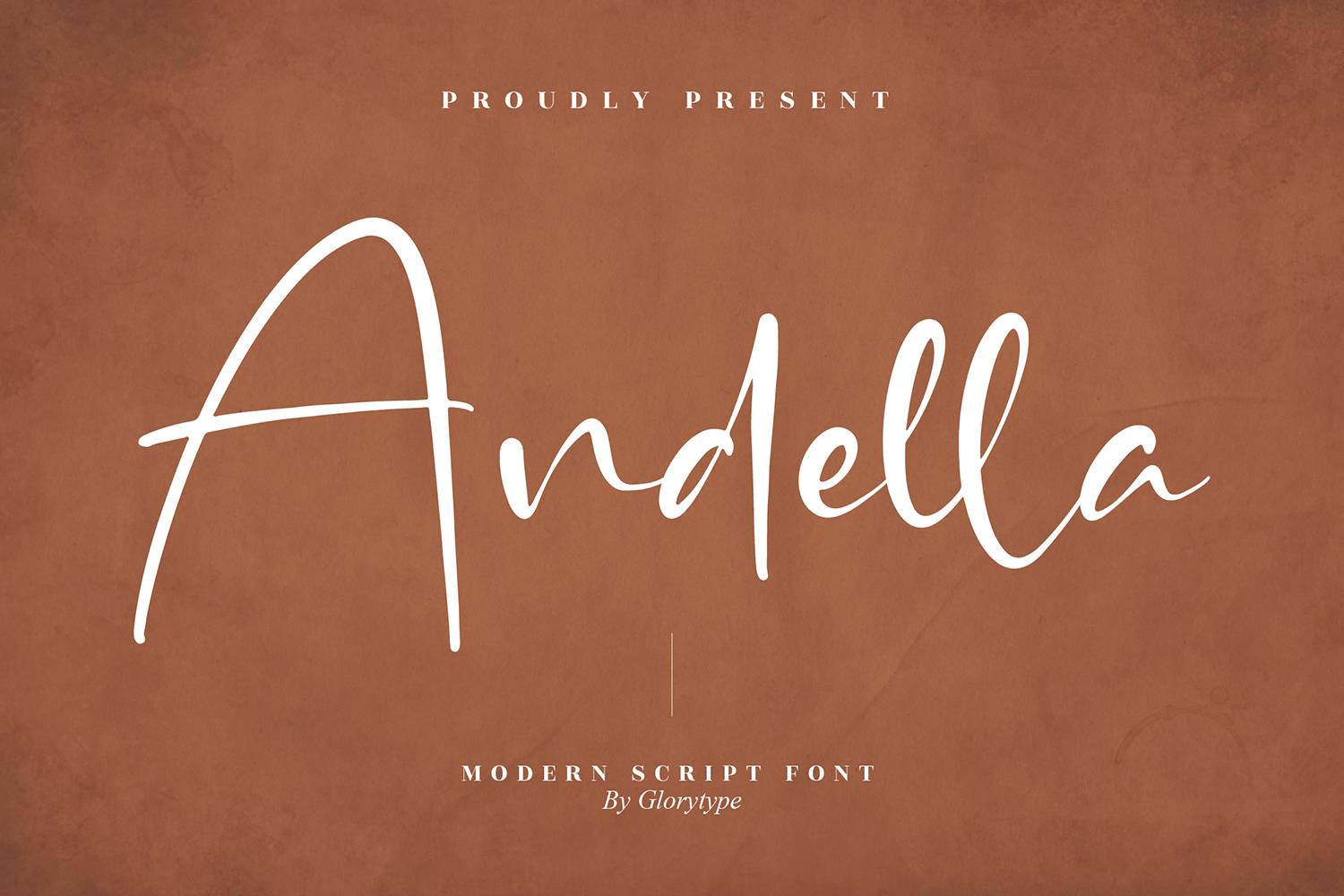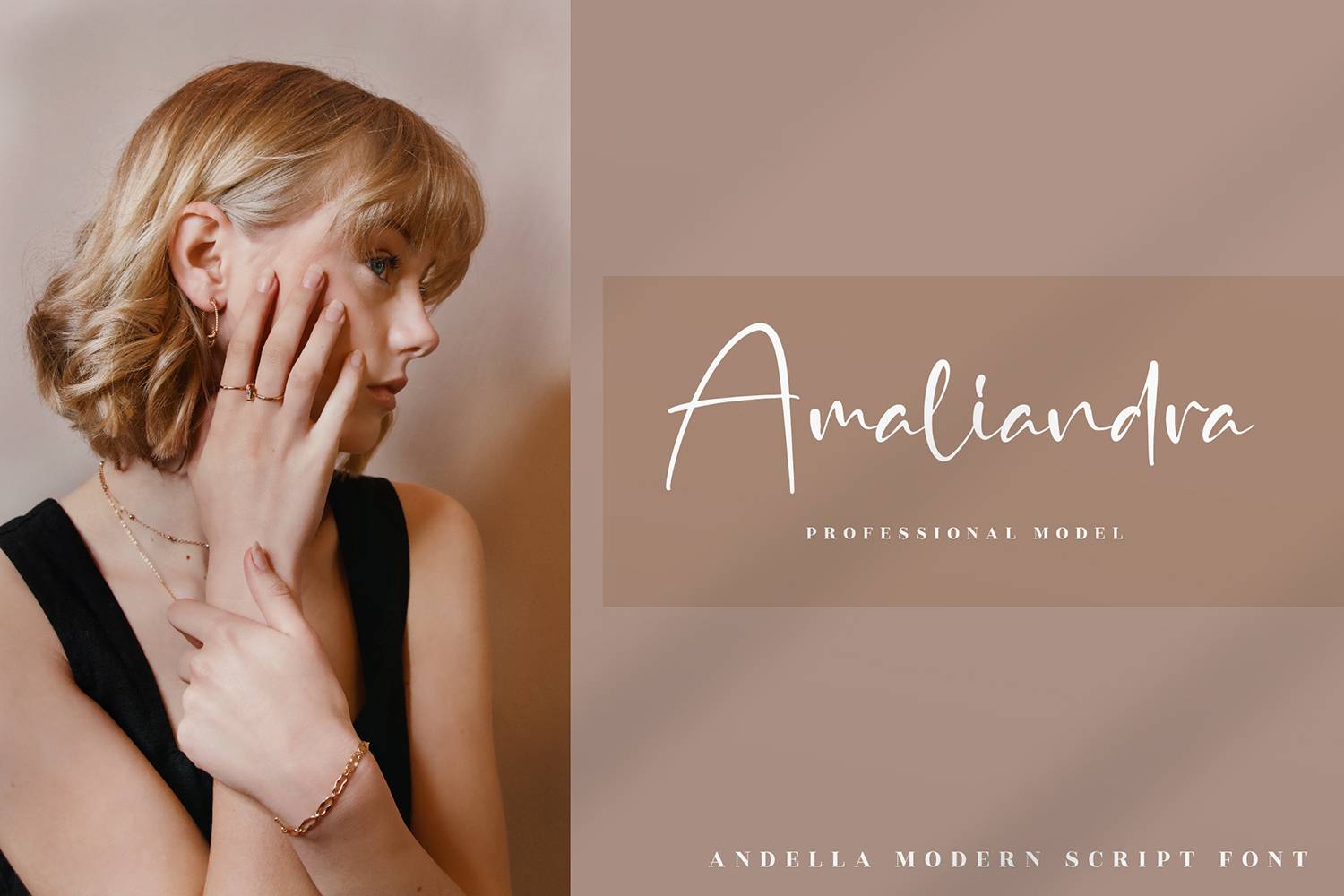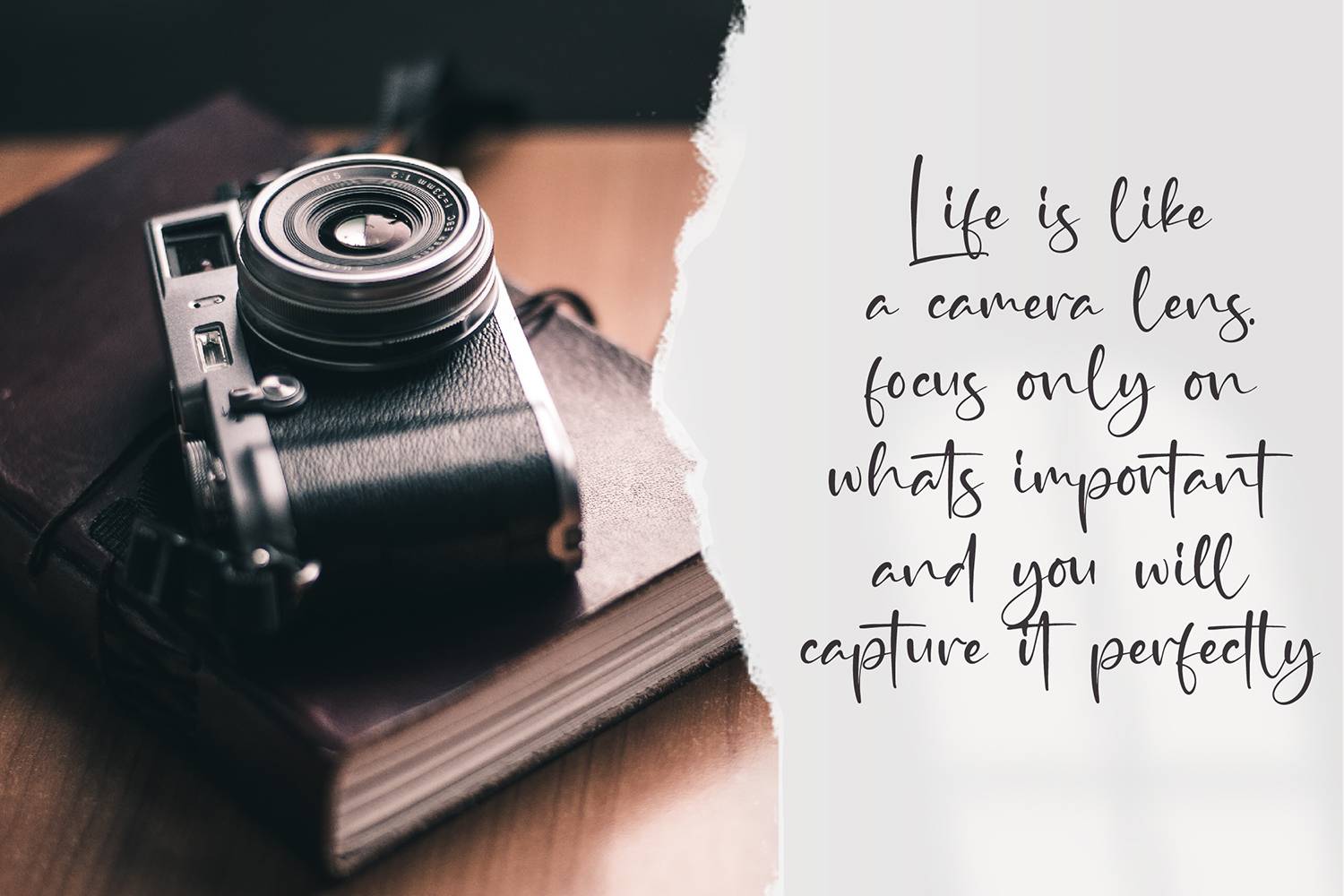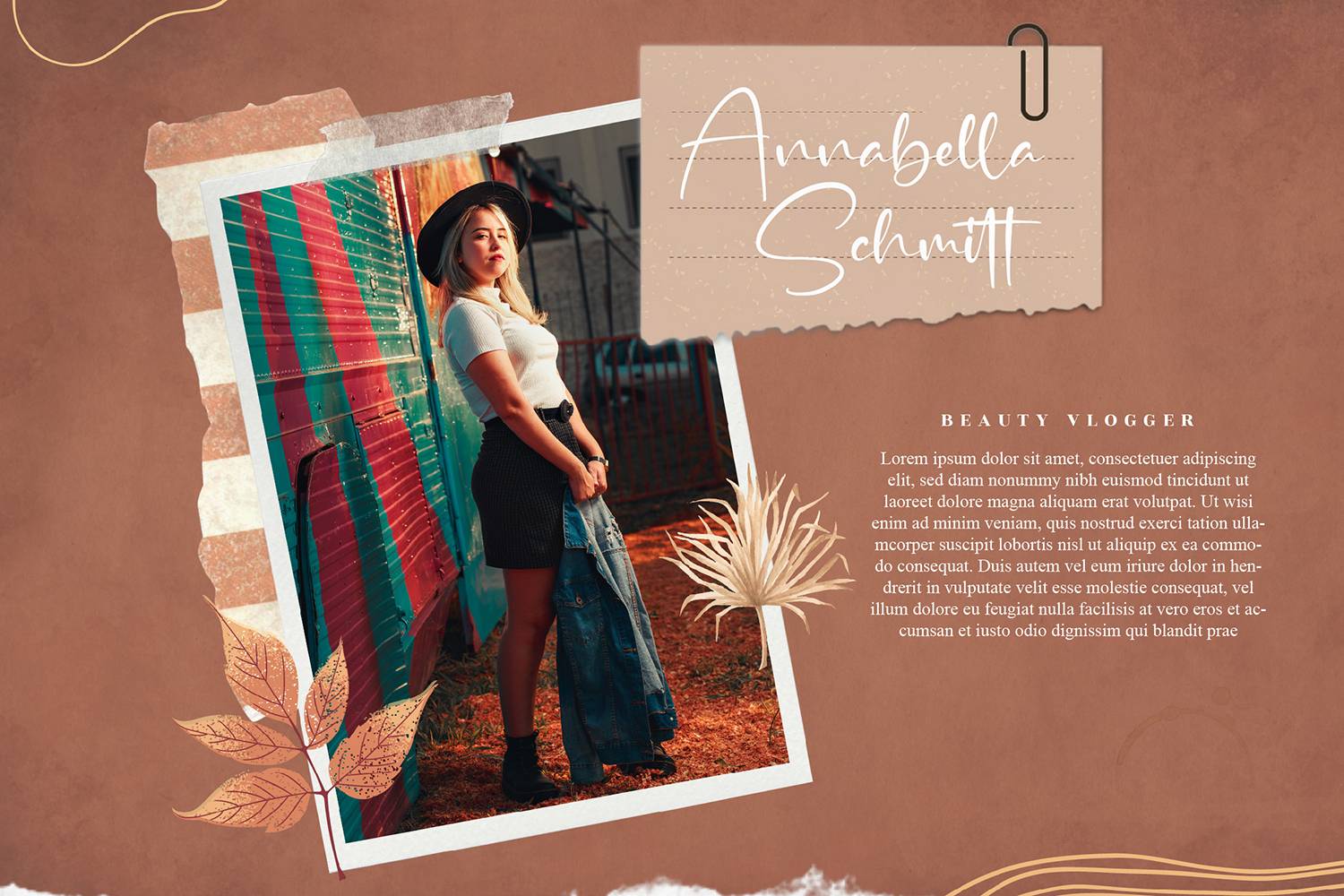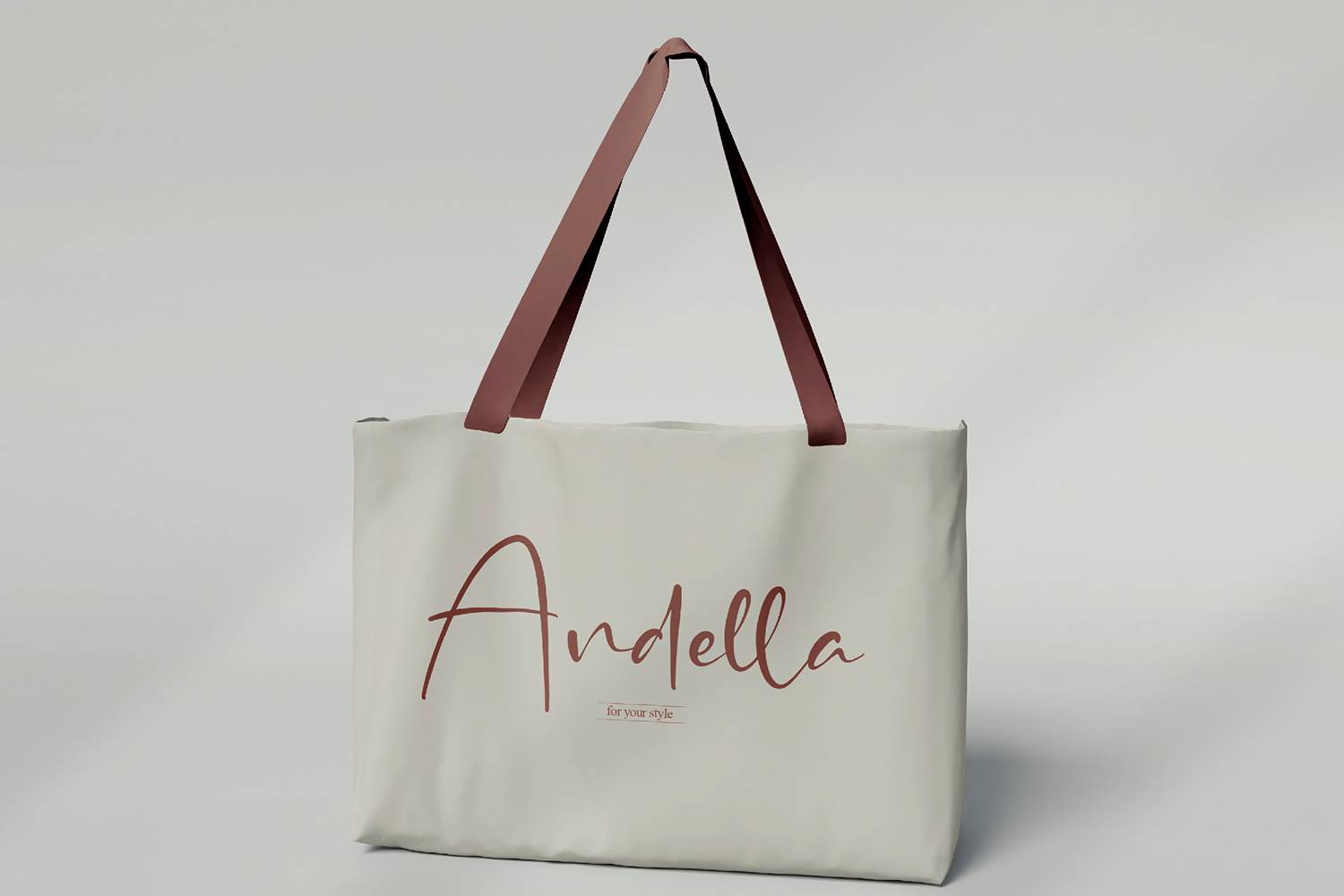
Andella is a delicate handwritten script font that combines elegance with a casual, personal touch. Its thin, flowing strokes and playful letterforms make it perfect for creative projects like invitations, branding, and lifestyle blogs where a warm, approachable style is desired. This font works especially well for designs that want to convey friendliness and charm without losing sophistication.
Andella Font
About Andella Font